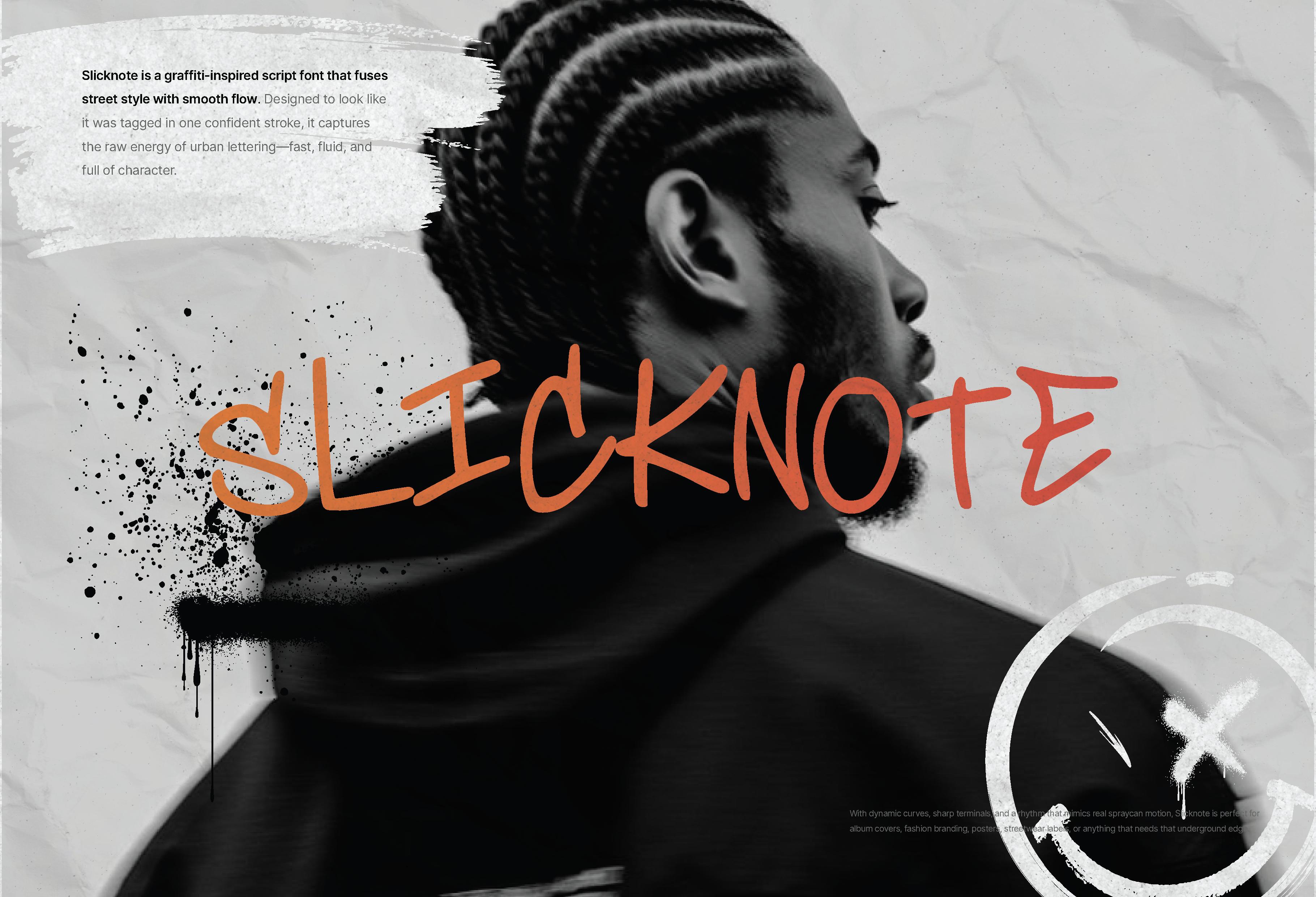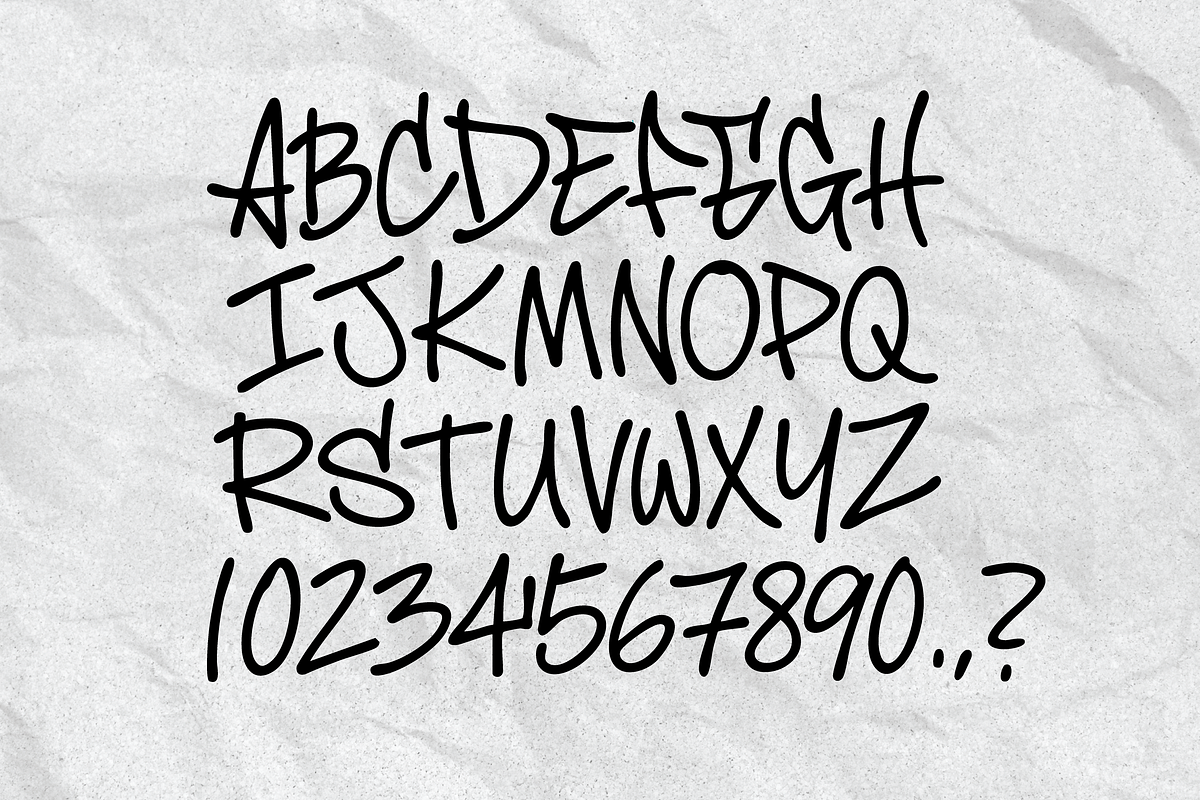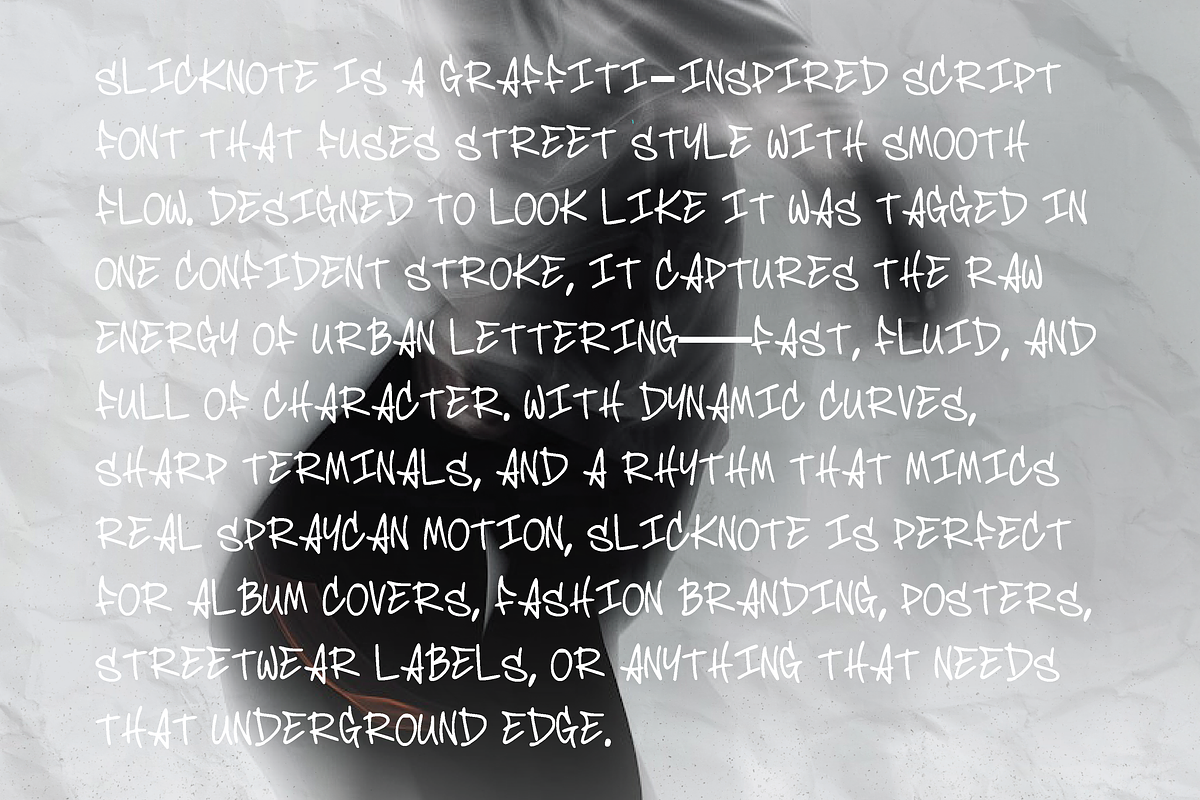
Slicknote Font
Slicknote is a graffiti-inspired script font that fuses street style with smooth flow. Designed to look like it was tagged in one confident stroke, it captures the raw energy of urban lettering, fast, fluid, and full of character. With dynamic curves, sharp terminals, and a rhythm that mimics real spraycan motion, Slicknote is perfect for album covers, fashion branding, posters, streetwear labels, or anything that needs that underground edge.